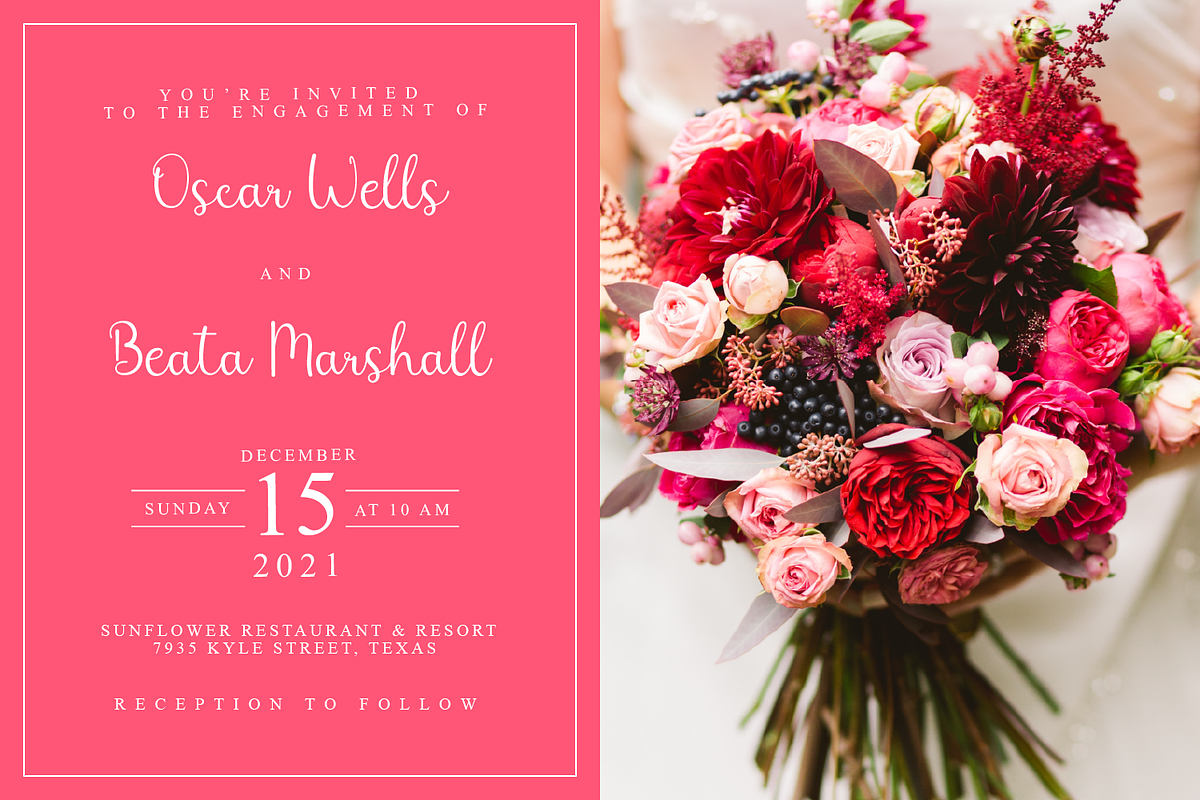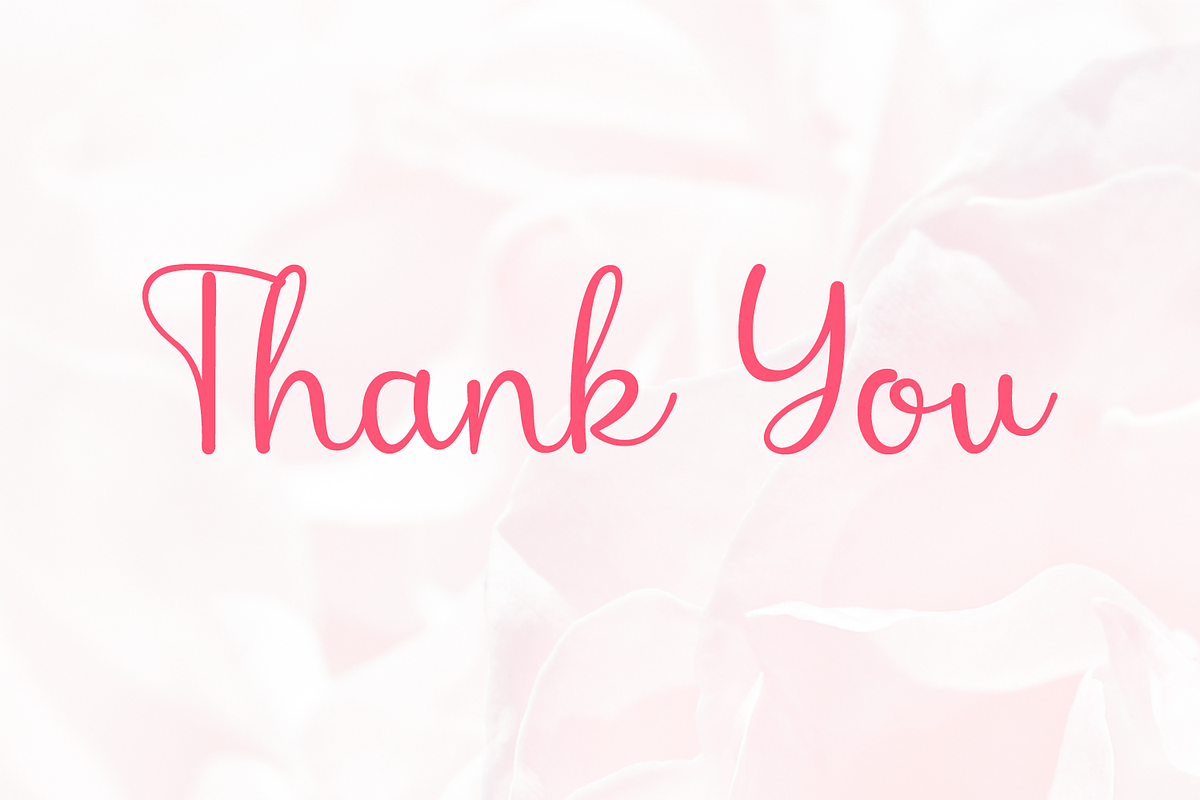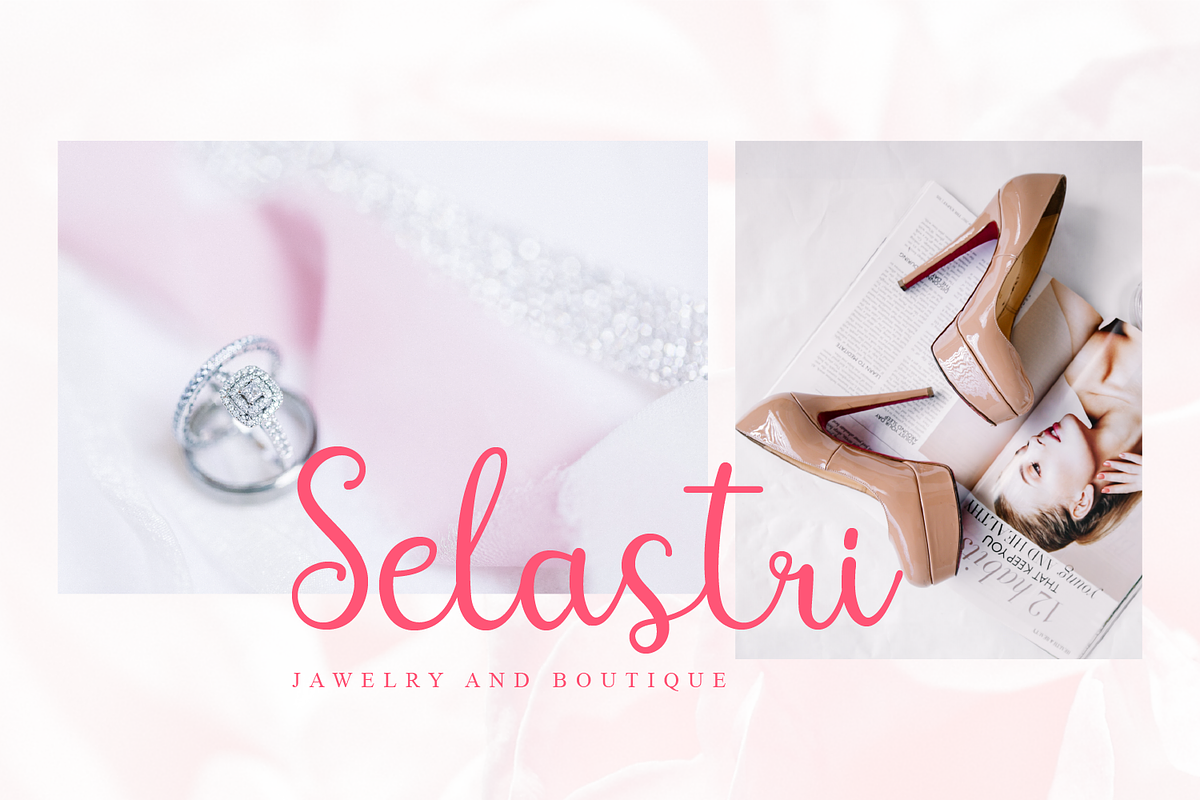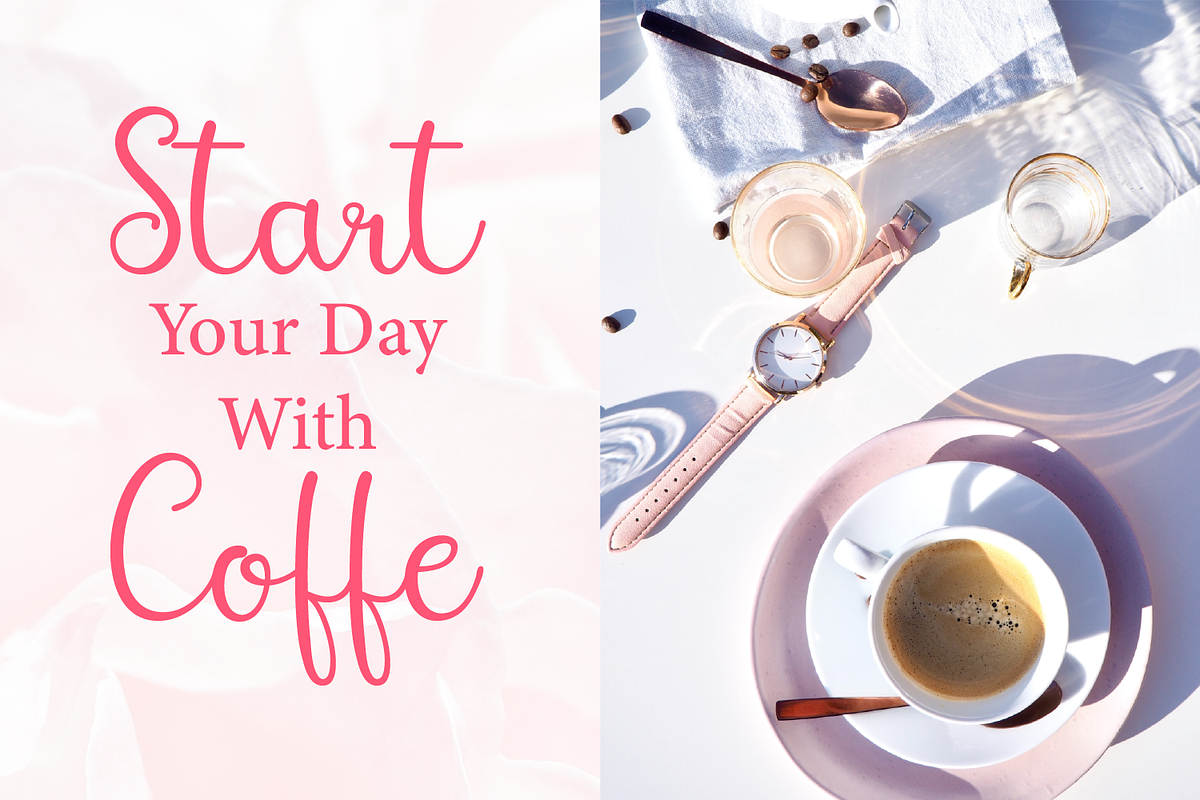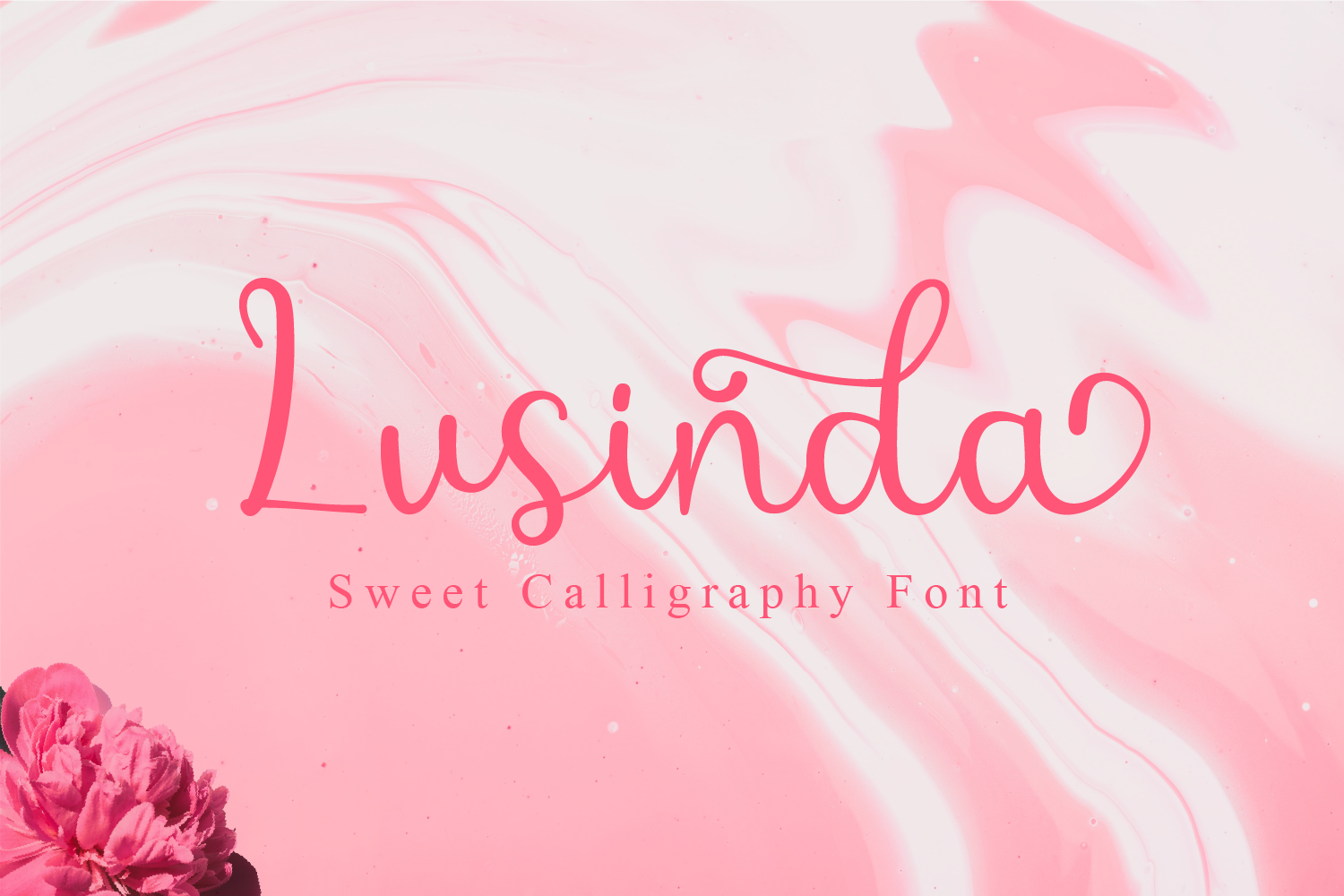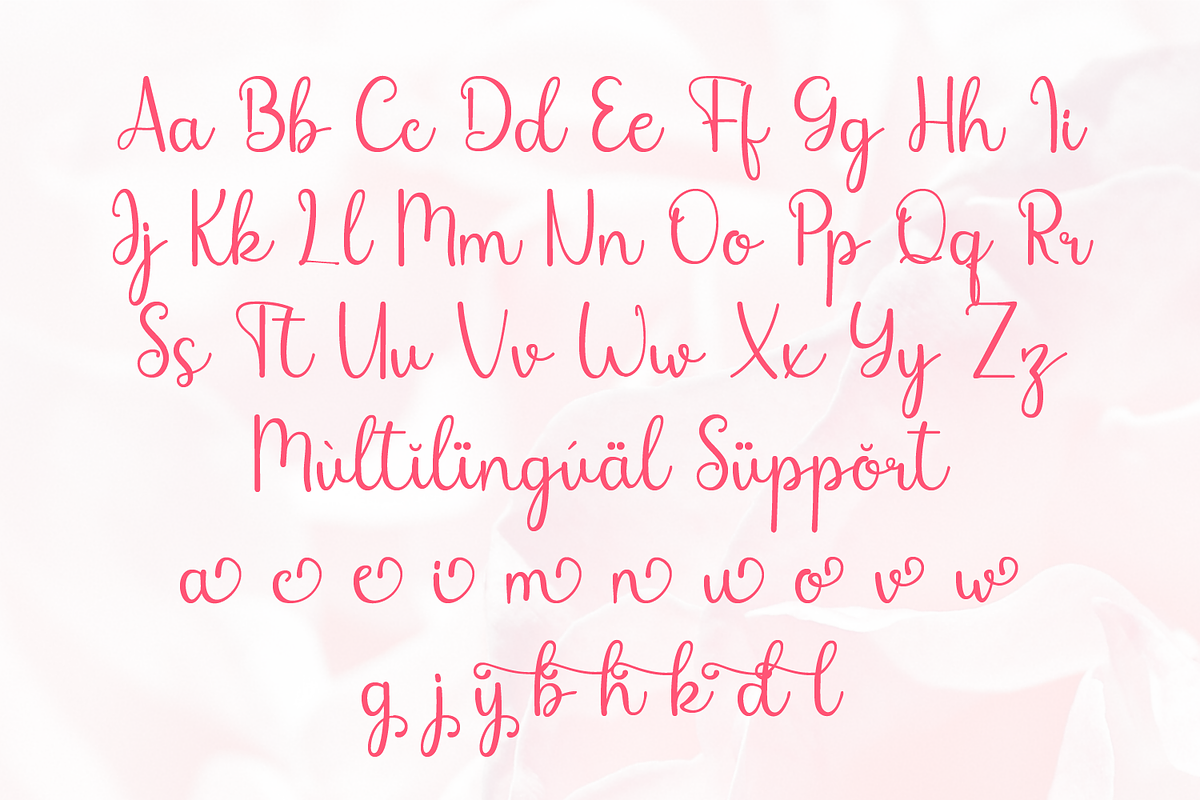
Lusinda | Beautiful Script Font
Lusinda is a sweet, whimsical, flowing and thin script font. Featuring characters that dance along the baseline, this font will add a luxury spark to any design project that you wish to create!